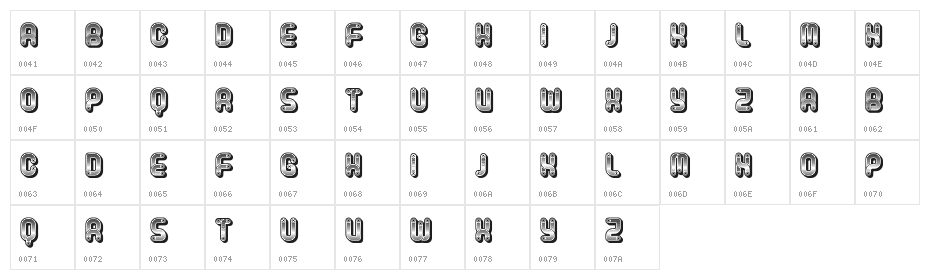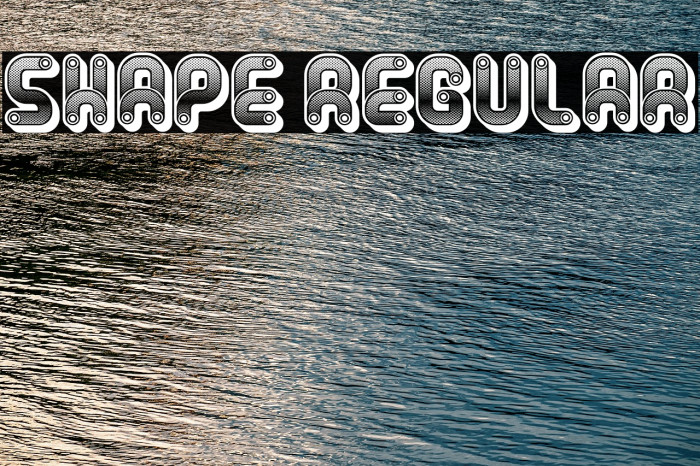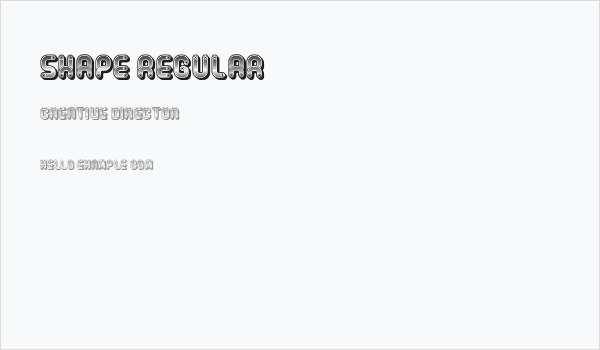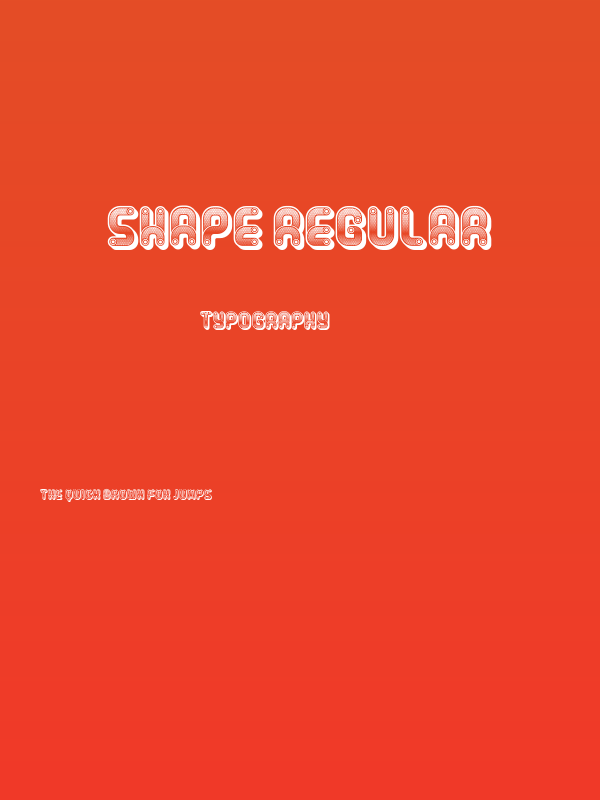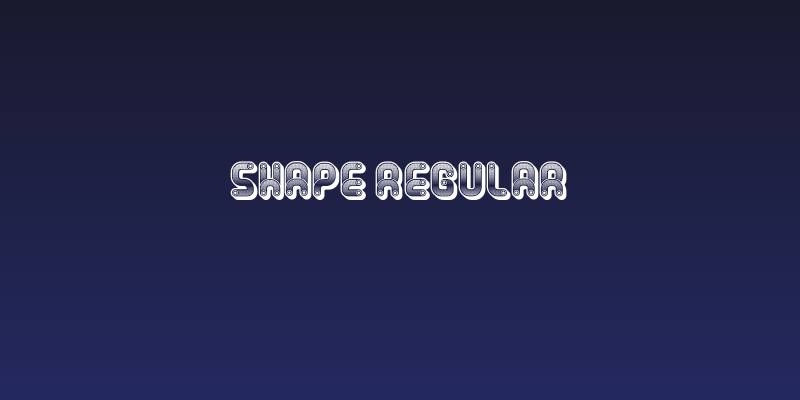
Shape Regular Font
Shape Regular Description
This font features a bold, decorative style with a unique mechanical and industrial aesthetic. Each character is designed with a three-dimensional effect, incorporating circular and linear elements that resemble gears or machinery components. The letters are outlined with a thick border, adding to the bold appearance, and are filled with a pattern of dots that create a textured look. The overall design is eye-catching and suitable for projects that require a strong visual impact.
| Overall Style | Industrial, Decorative |
| Use Case | Logos, Posters, Branding |
| Proposed Projects | Ideal for branding, posters, and any design projects that aim to convey a sense of strength and industrial style. |